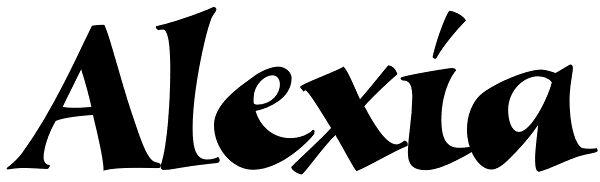
Alexia
Philip Bouwsma is concerned about the survival of calligraphy in the computer age. The last time there was a technology shift of this magnitude, in Gutenberg's day, the metal workers shouldered out the scribes and set their own stamp on type design...